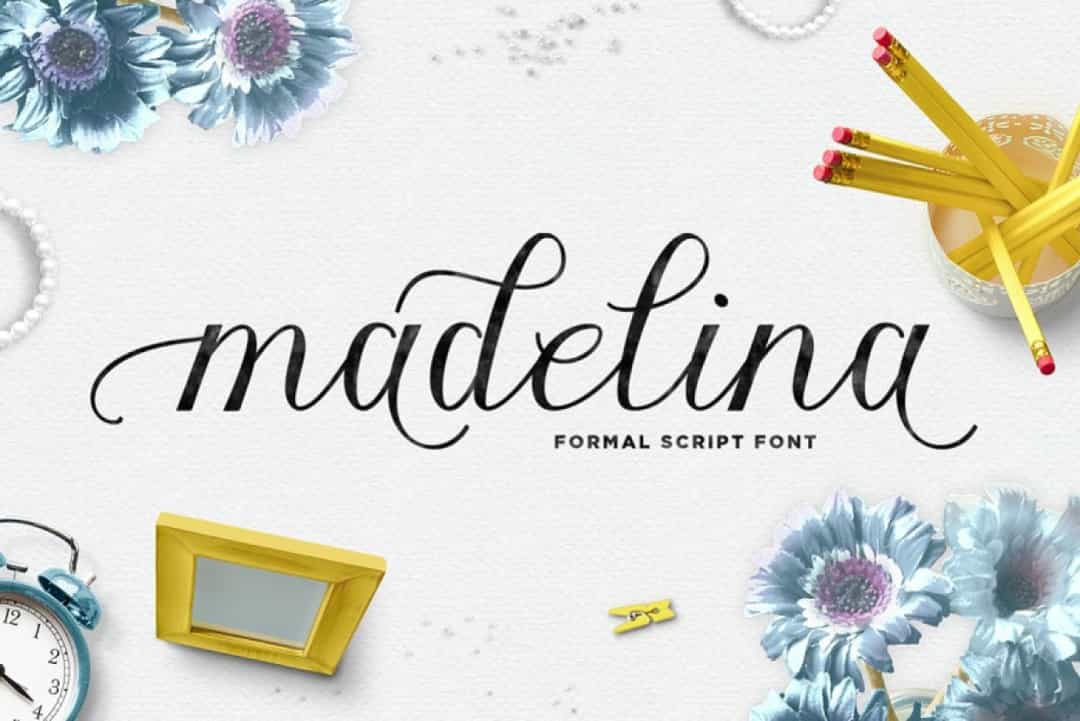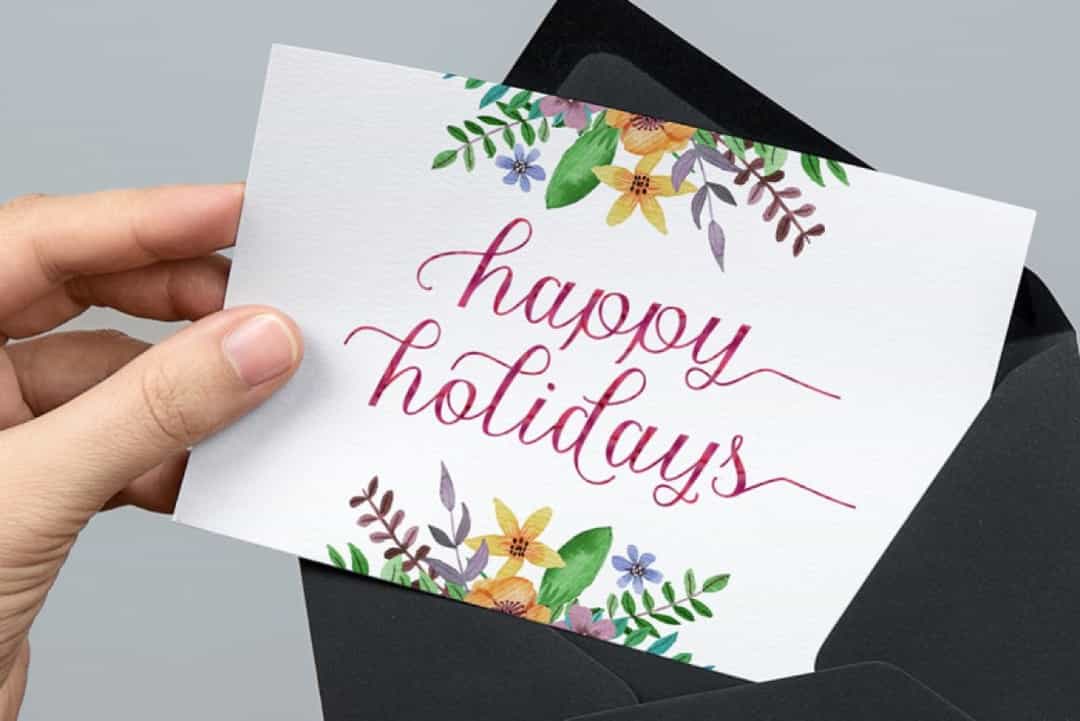
Madelinais is an elegant formal script calligraphy font, perfect for calligraphic use in formal settings. Opentype offers stylistic alternatives and ligatures as well as multilingual support allowing it to be used in many contexts such as wedding invitations, logos T-shirt printing, heading, letterhead labels, signage news posters badges.